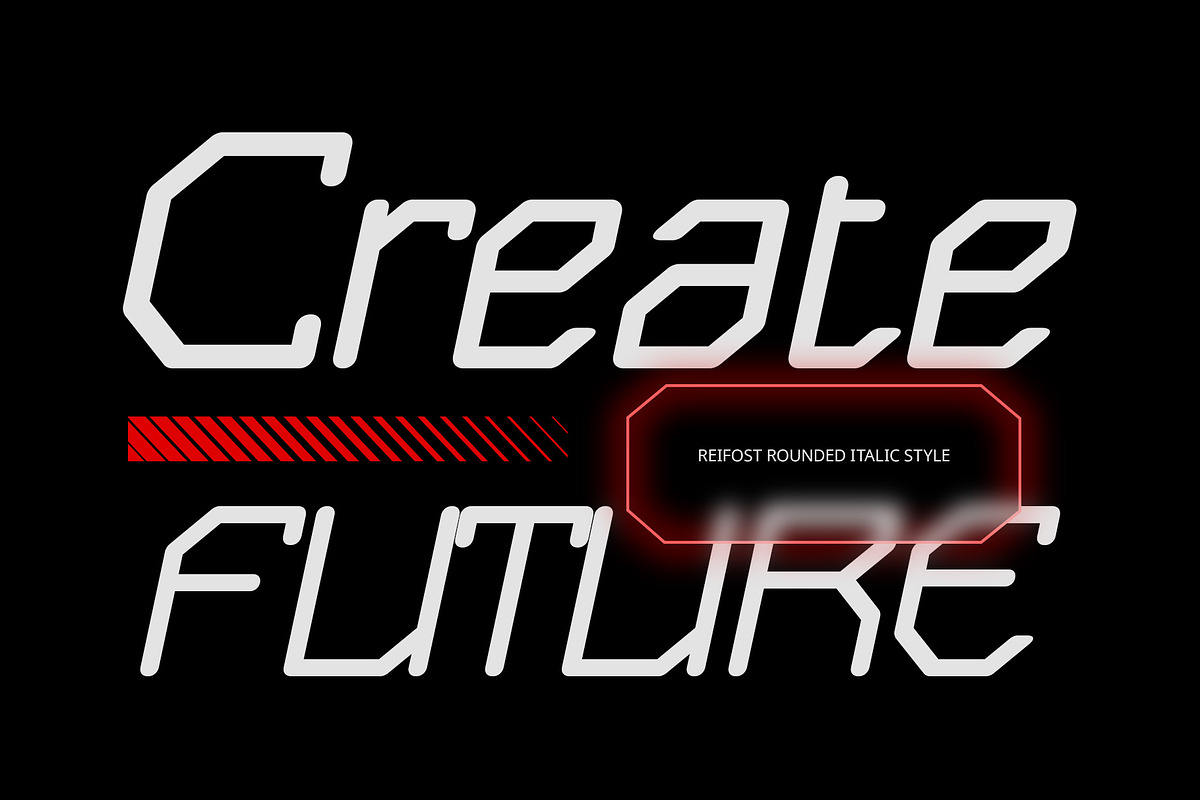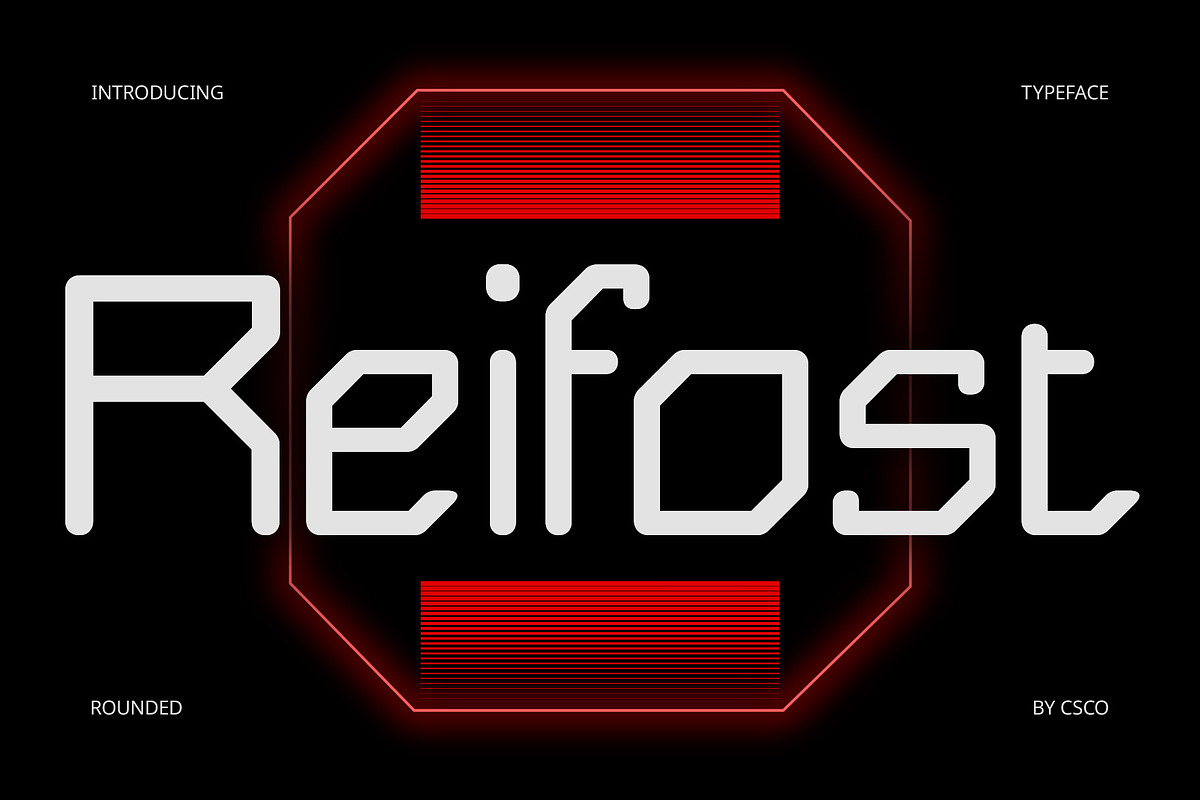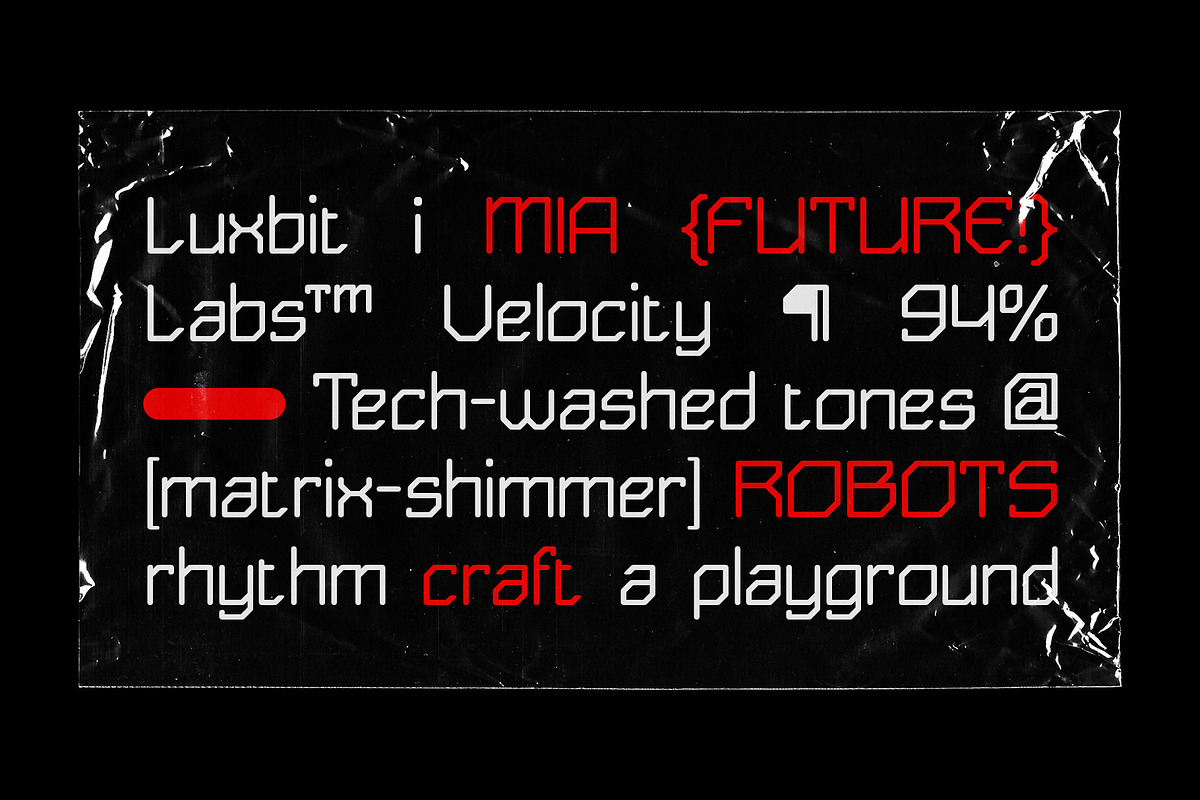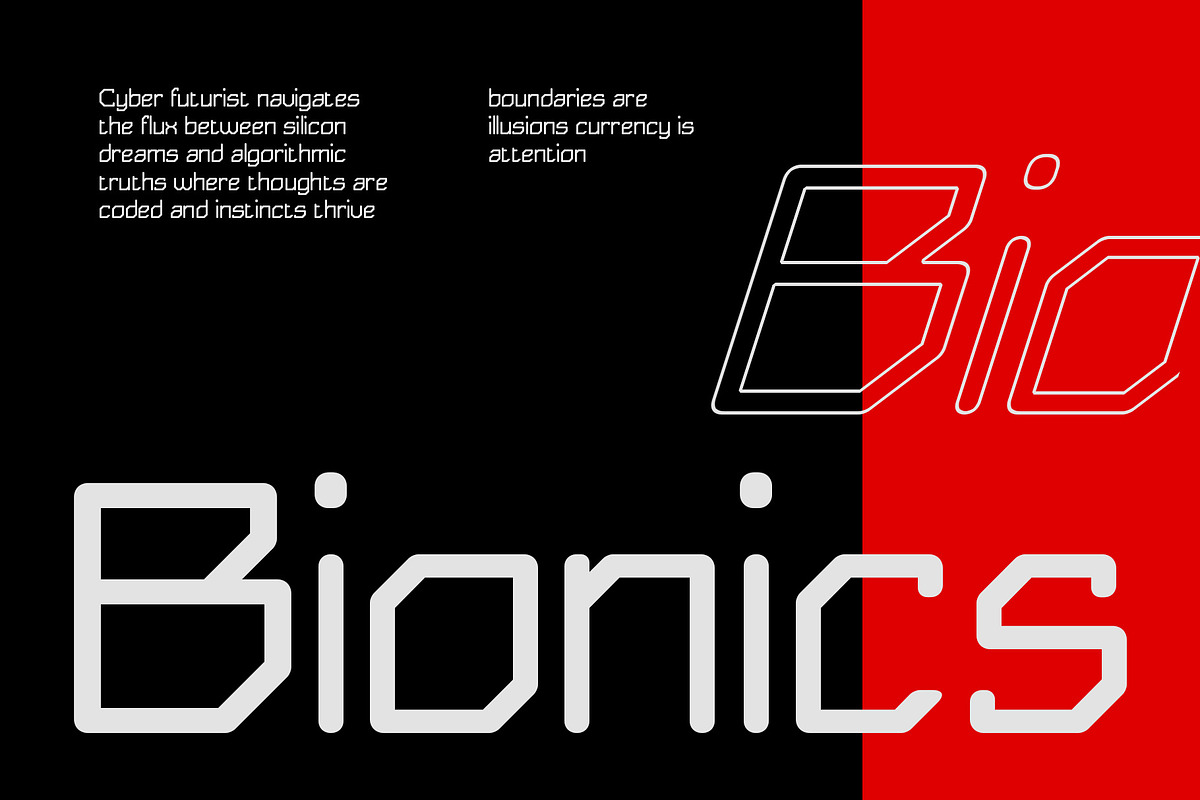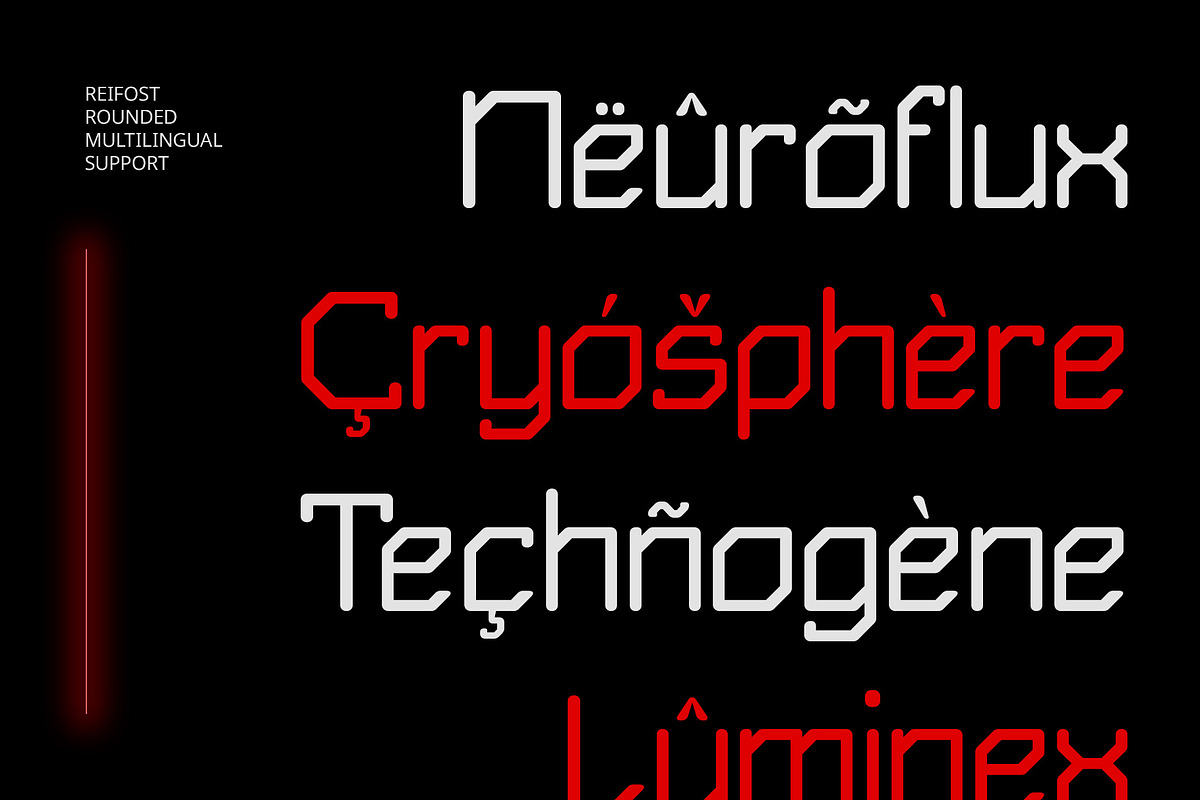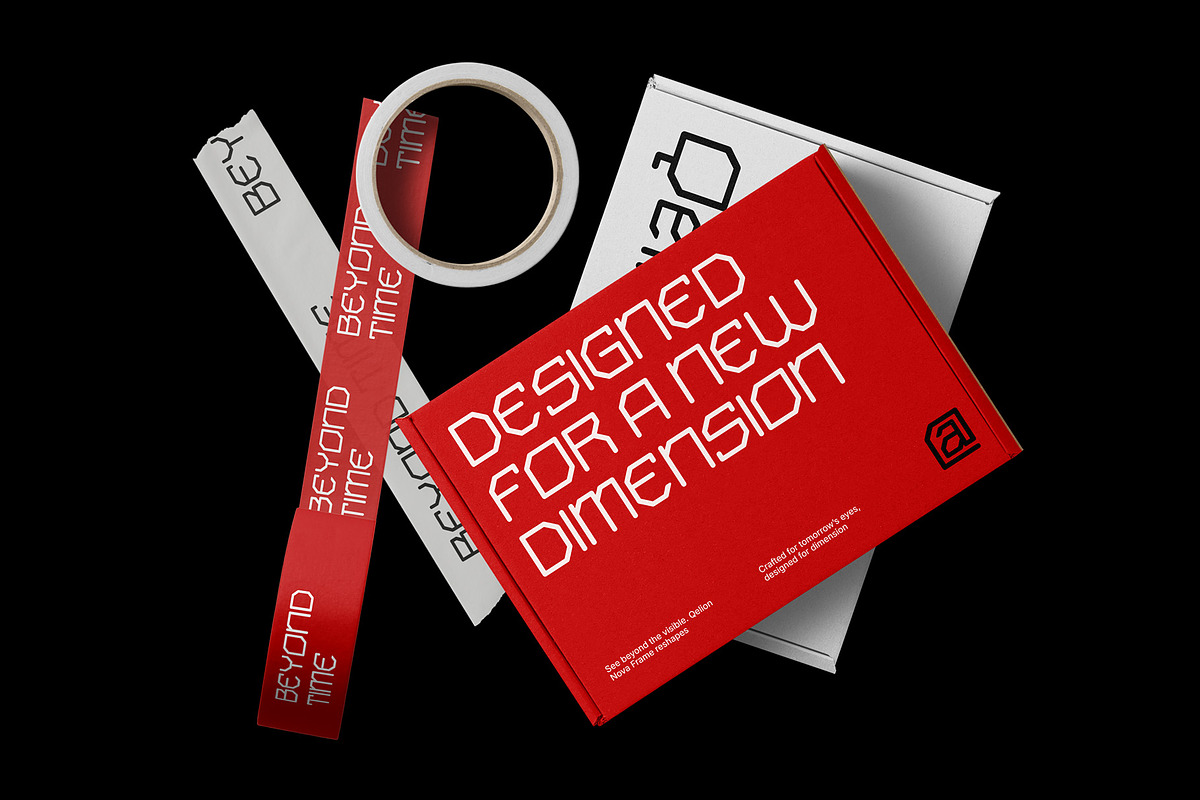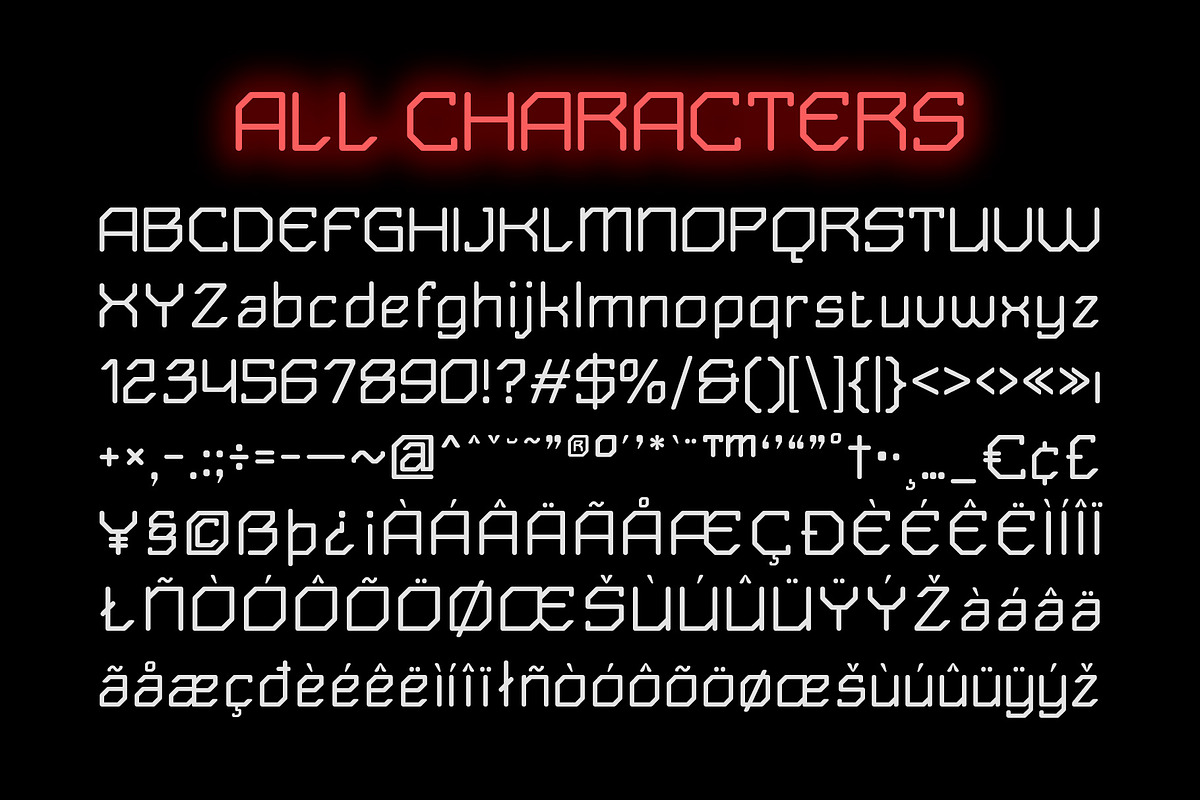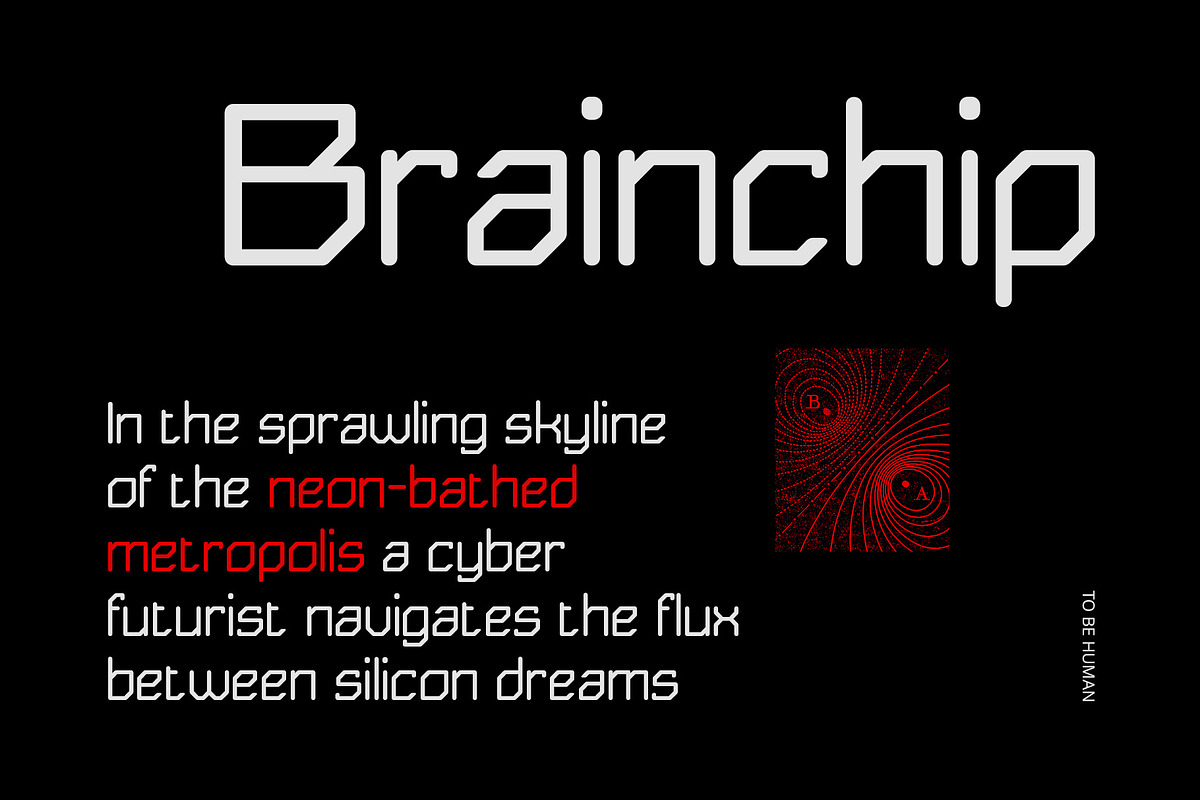
Reifost Rounded
Reifost Rounded Font – Sleek Tech Meets Soft Form
Futuristic Aesthetic with Rounded Elegance Reifost Rounded is a modern display font that merges techno-futuristic design with clean, smooth, and rounded letterforms. The font captures the essence of digital innovation while introducing a soft, human-centered edge, making it ideal for tech-forward projects with a friendly tone.
Sharp Meets Soft: Balanced Visual Impact Its precise, streamlined forms are balanced by curved terminals, blending innovation with accessibility. This duality creates a visual identity that feels both high-tech and inviting, perfect for designs that demand clarity without harshness.
Minimalist Form, Maximum Flexibility The sleek, minimalist structure of Reifost Rounded supports strong readability and scalability, whether used in UI design, product branding, or modern editorial layouts. It brings a sense of order, clarity, and approachability to every project.
Ideal for Visionary Design Needs Whether you’re working on futuristic posters, digital dashboards, or startup branding, Reifost Rounded provides the typographic voice of innovation, forward-thinking, and clean design—a smart solution for visual systems that aim to be both bold and approachable.
Conclusion: Rounded Tech with Character Reifost Rounded fuses futuristic sharpness with soft appeal, offering a distinctive, modern identity for digital and tech-driven visuals. It’s the perfect font for those shaping the interface of tomorrow with clarity and creativity.